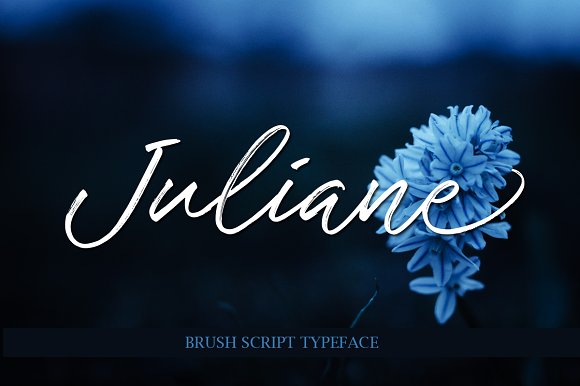
Juliane Font
Welcome, font enthusiasts! Step into the enchanting world of Juliane Script, a remarkable creation by Byuly Ayika, where calligraphy meets elegance. Juliane's delicate strokes and flowing curves dance along the digital canvas, infusing your designs with a touch of timeless sophistication.
Immerse yourself in its mesmerizing finesse and discover the boundless creative possibilities it holds. Juliane Script is a symphony of beauty, a masterpiece that captivates the senses and transforms ordinary words into works of art. Each letter, meticulously crafted, exudes grace and refinement, embodying the essence of timeless elegance.
Let Juliane Script be your muse, guiding you through the realm of design with its effortless charm. Embrace the allure of its sweeping strokes and feel the poetry in its lines. With Juliane Script, your designs will transcend the ordinary, becoming visual masterpieces that speak volumes without uttering a single word.
Enhance your design arsenal with this versatile script, perfect for a multitude of projects. Whether you seek to adorn your wedding invitations with a touch of romance, breathe life into your branding with a personal touch, or simply add a dash of artistry to your everyday creations, Juliane Script is your trusted companion.
Step into the world of Juliane Script and unleash your creativity. Let your imagination soar as you witness the transformation of your designs into captivating works of art. With Juliane Script as your guide, you'll discover a world where elegance and beauty intertwine, where words dance with grace, and where your designs leave a lasting impression.